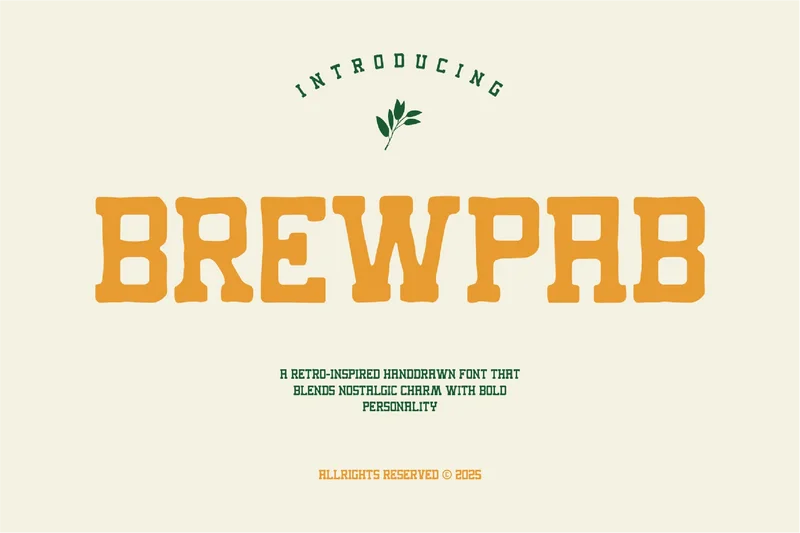
Brewpab – Retro Display Font
A retro-inspired handdrawn font that blends nostalgic charm with bold personality. Crafted with a vintage touch, BREWPAB captures the spirit of classic sign painting and old-school posters, making it perfect for branding, packaging, logos, and creative design projects that need a handcrafted, timeless feel. Each letter is drawn with character, giving your text a warm, authentic, and eye-catching presence.